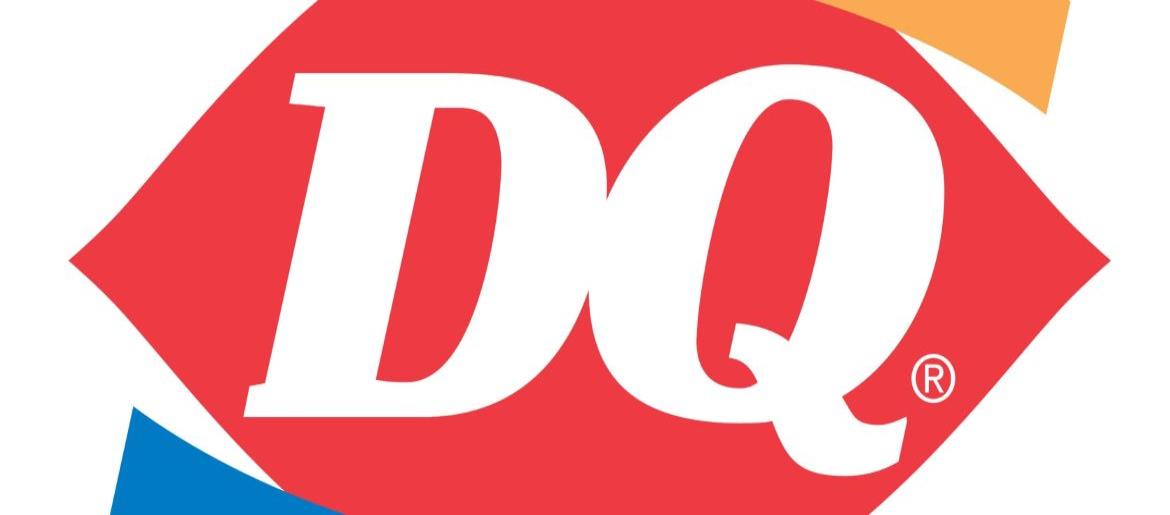
Dairy Queen Font
The Dairy Queen font carries the same upbeat personality as the brand itself—warm, inviting, and made to make people smile. Its smooth curves and bold, rounded lettering feel playful and satisfying, like a swirl of soft-serve ice cream. The balance between modern simplicity and vintage charm makes it instantly recognizable, helping it stand out in both signage and packaging. The original typeface associated with the logo is believed to be similar to ITC Clearface Pro Black Italic.
About Dairy Queen
Dairy Queen has been a symbol of sweet indulgence and family traditions since its founding in 1940. Known worldwide for its soft-serve cones, Blizzards, burgers, and treats, the brand has built a legacy on comfort, nostalgia, and pure enjoyment. Its identity blends fun with familiarity—an inviting atmosphere where childhood favorites and classic fast-food comfort meet. The style of the Dairy Queen font reflects that same experience: bold, friendly, and full of charm, much like the iconic red logo that has welcomed generations. Whether used in creative projects, themed branding, or food-related designs, it evokes the joy of warm summers, shared treats, and memories made over dessert.